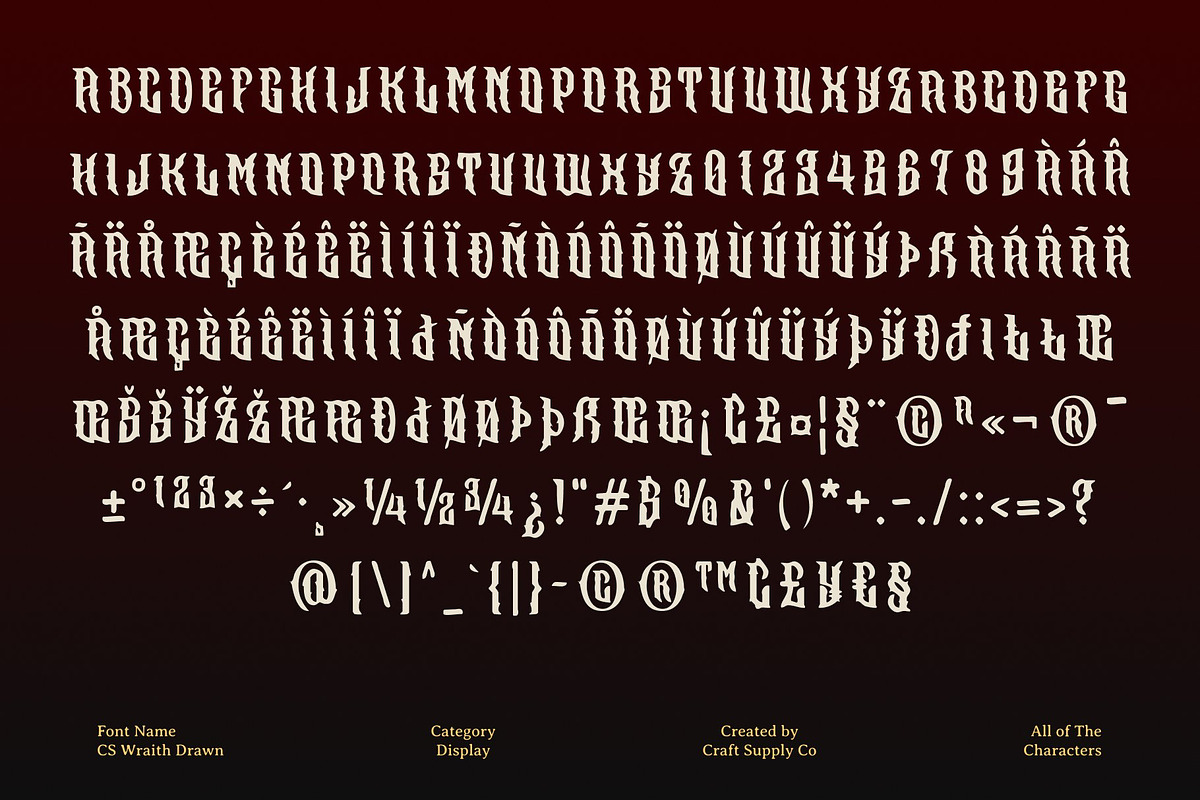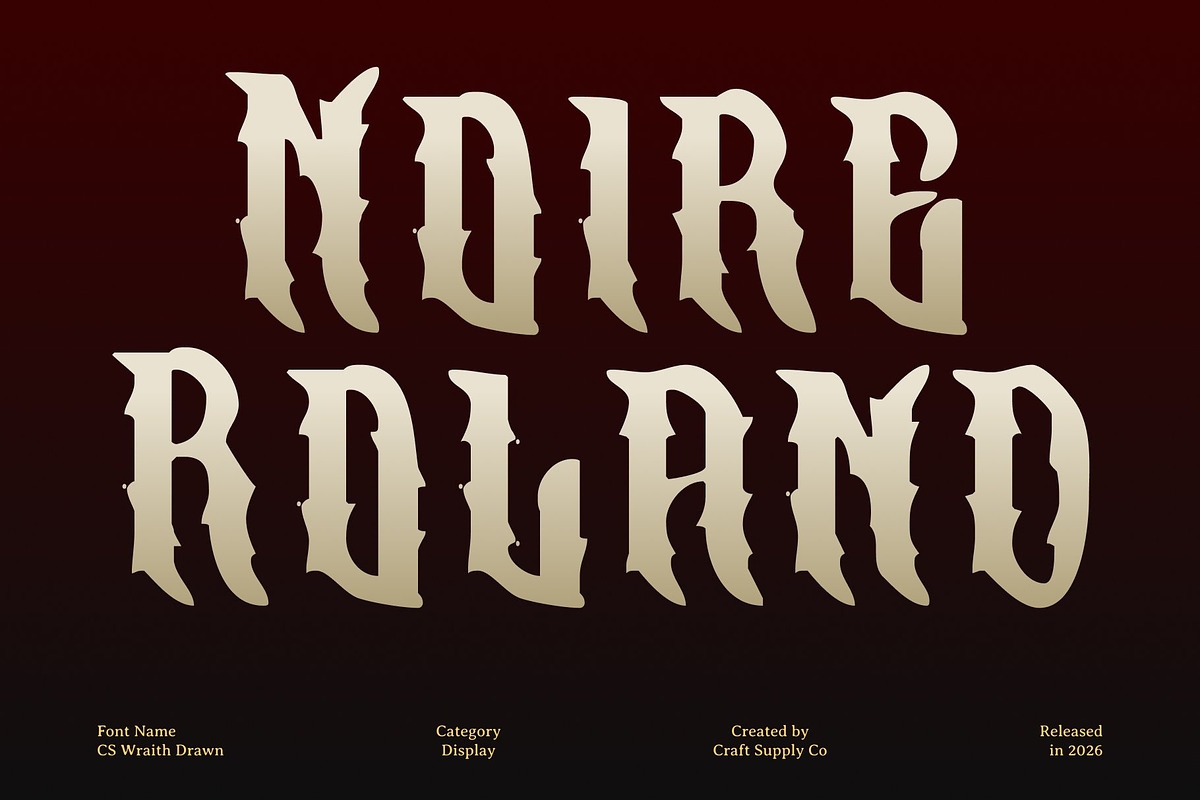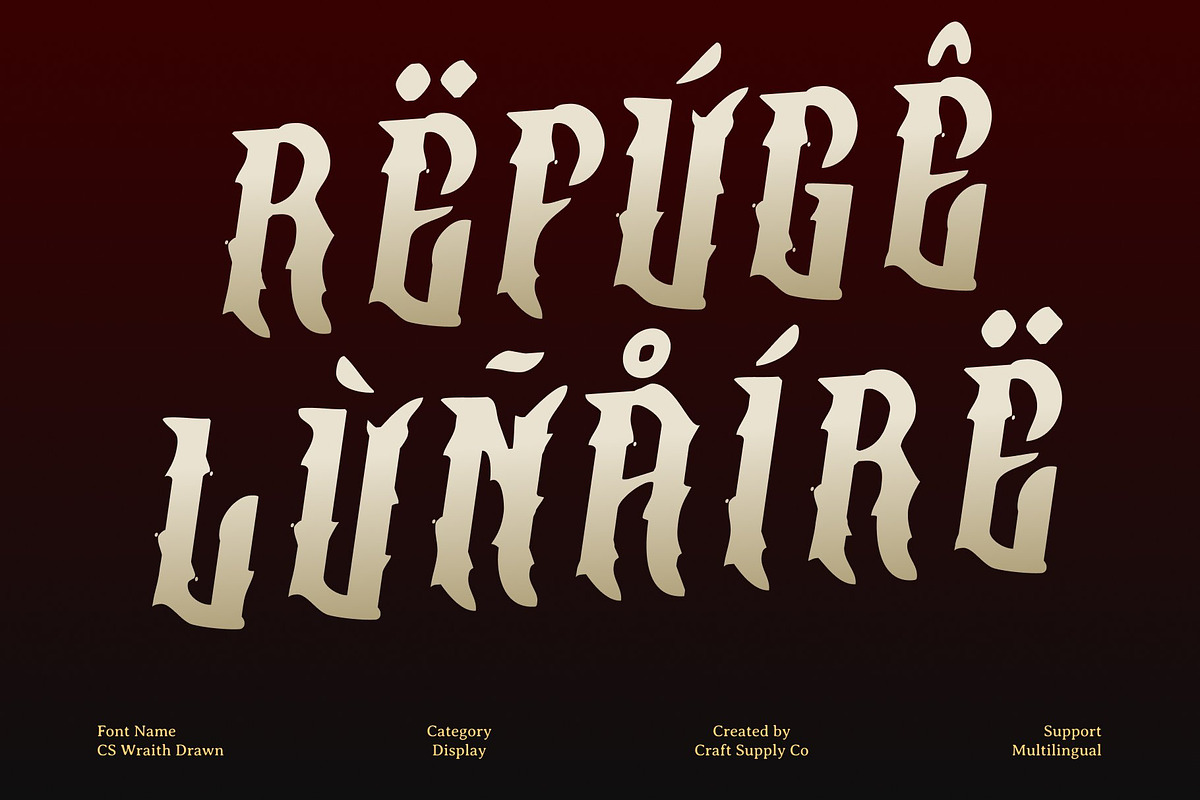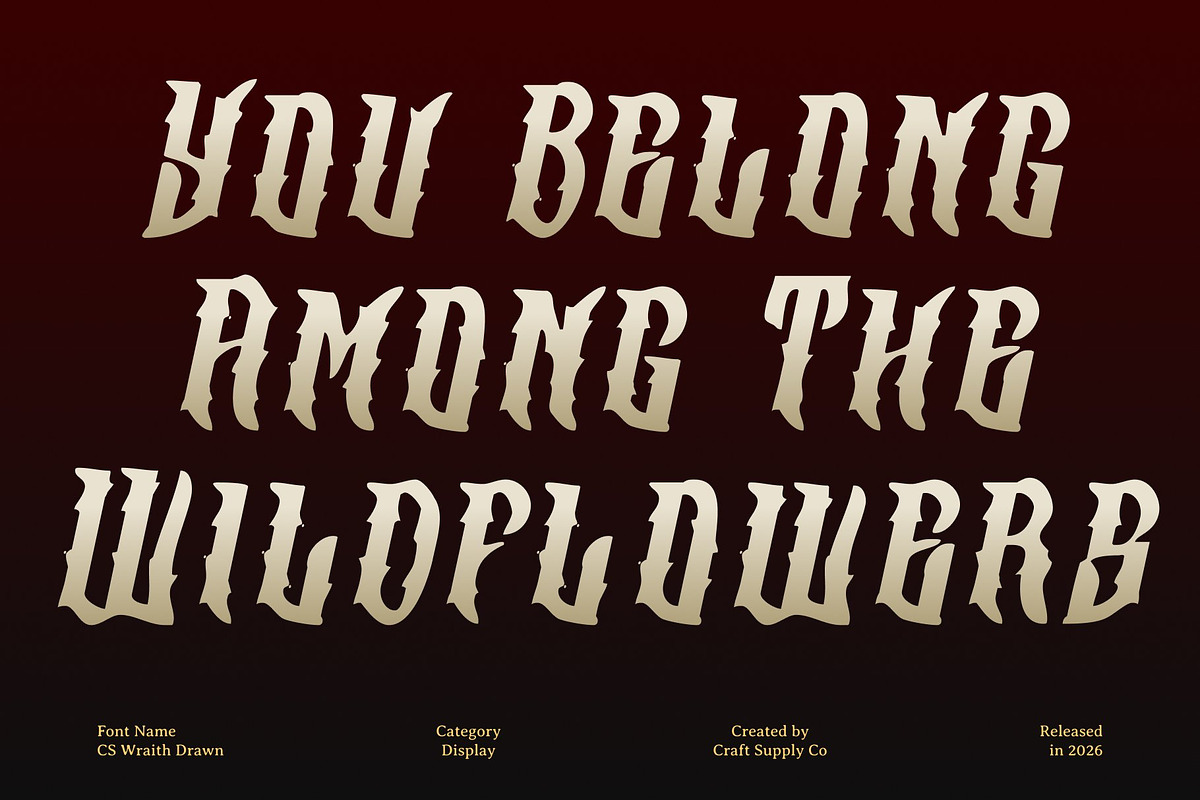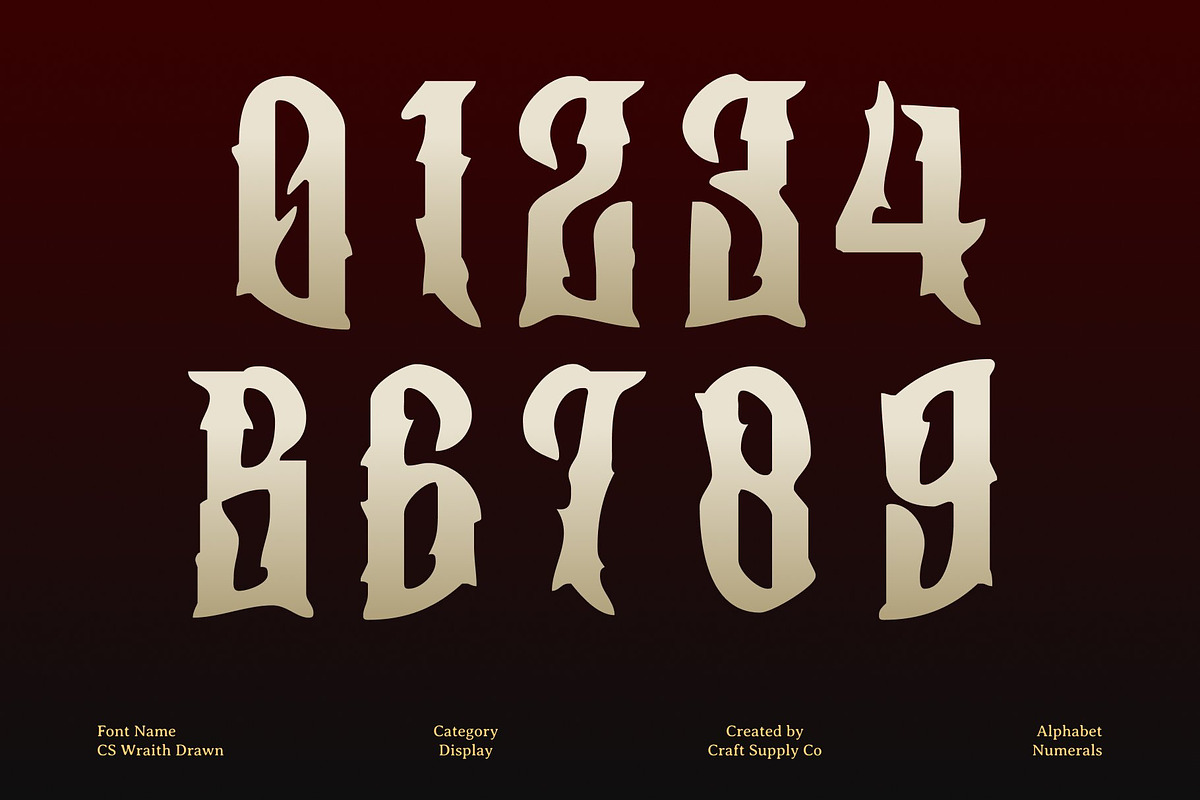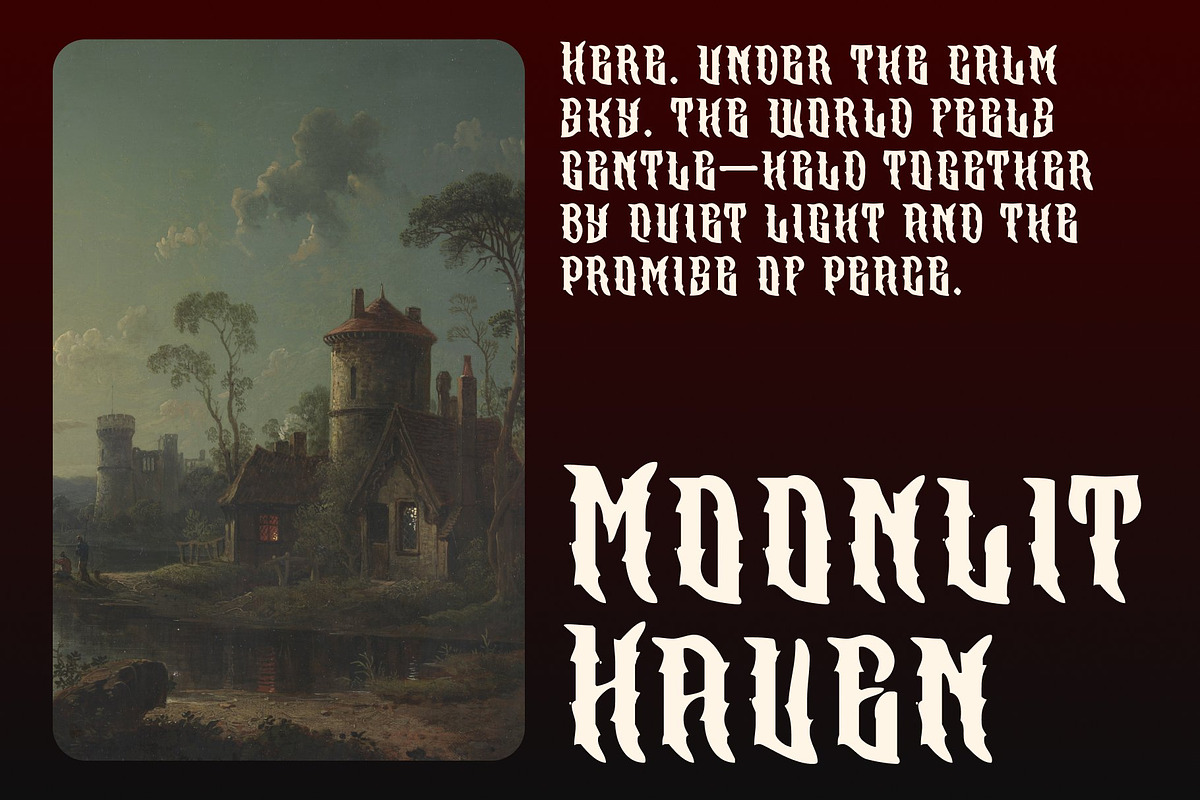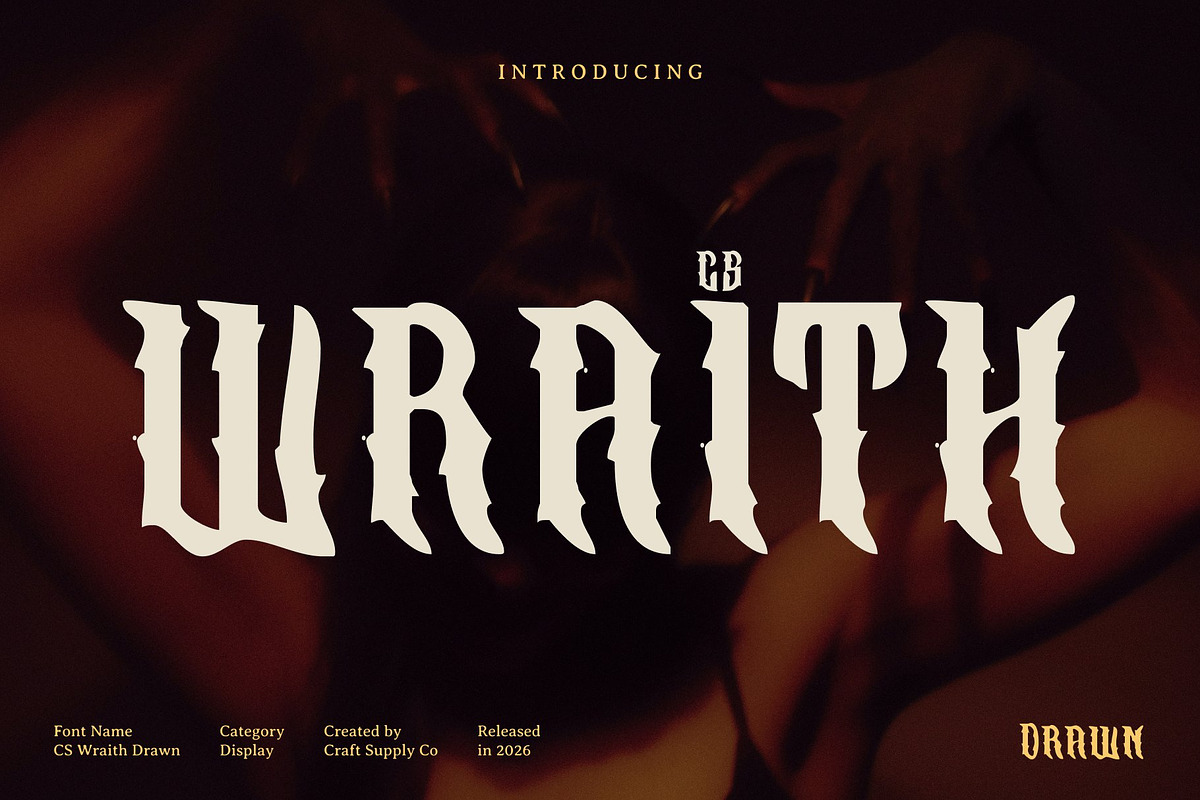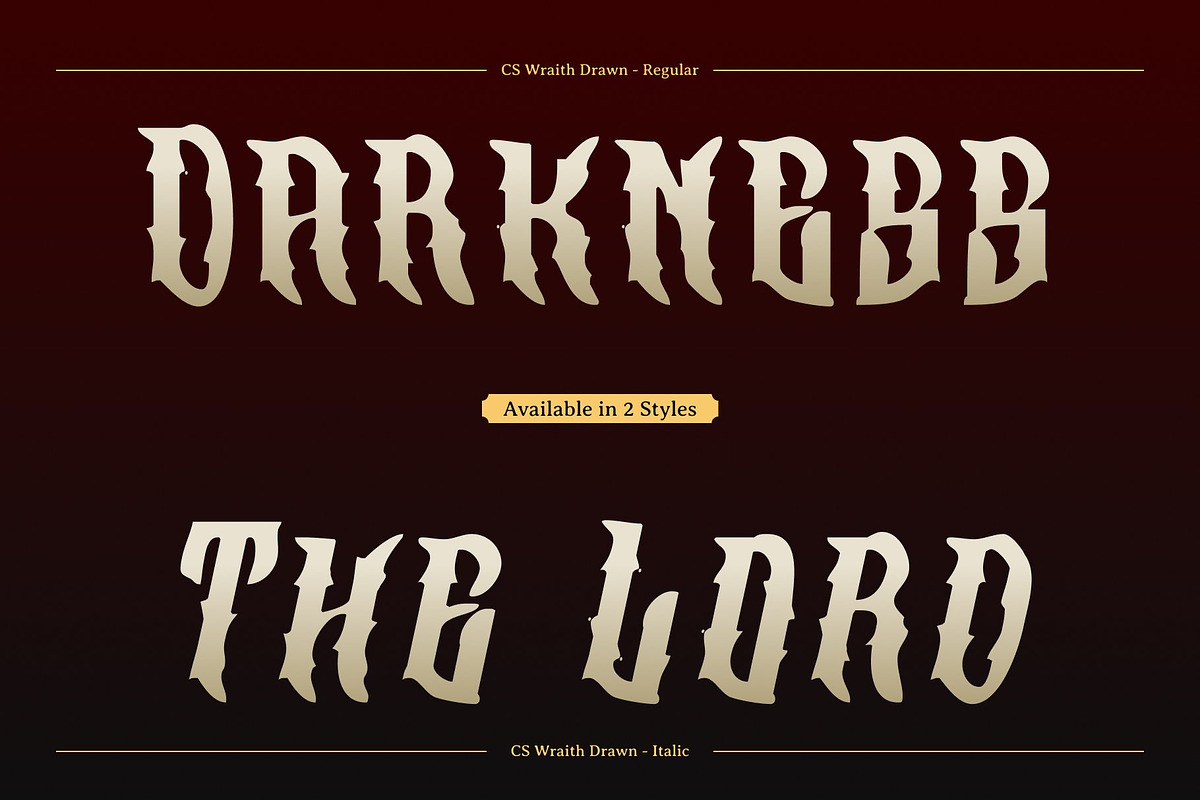
CS Wraith Drawn
CS Wraith Drawn – Black Metal Display Font Forged from Darkness and Raw Power
Jagged Black Metal Typography with Relentless Energy This is a raw and aggressive black metal display font born from chaos and intensity. Defined by jagged spikes, uneven strokes, and ferocious letterforms, it captures the unfiltered spirit of extreme music culture. The drawn effect amplifies its savage nature, giving each character a wild, handcrafted presence that feels dangerous and alive.
Chaotic Strokes with a Merciless Edge Every angle, tear, and distortion is designed to evoke tension and raw emotion. The irregular forms and distressed texture mirror underground metal aesthetics sharp, unpolished, and unapologetically bold. The hand-drawn imperfections add visceral movement, transforming text into a visual assault.
Perfect for Band Logos and Extreme Visuals This font thrives in band logos, album covers, concert posters, dark apparel, and extreme visual branding. Its brutal structure and aggressive rhythm demand attention, making it an essential typographic weapon for projects rooted in rebellion, darkness, and uncompromising attitude.
Dark, Fearless, and Unforgiving This font is not made to be subtle it is a declaration of defiance. This font embraces imperfection, chaos, and raw expression, channeling the untamed essence of black metal and underground art. Use it to unleash pure emotion and give your designs a dark, unforgettable force.
- CS Wraith Drawn Regular
- CS Wraith Drawn Italic